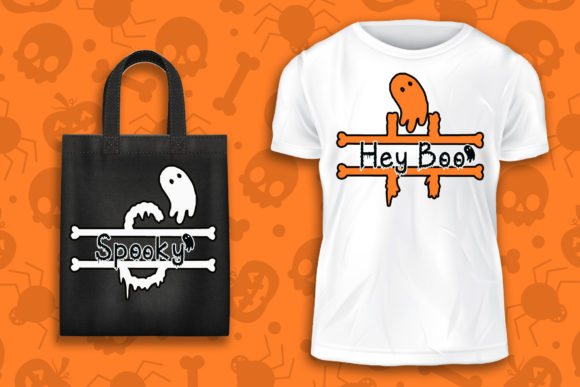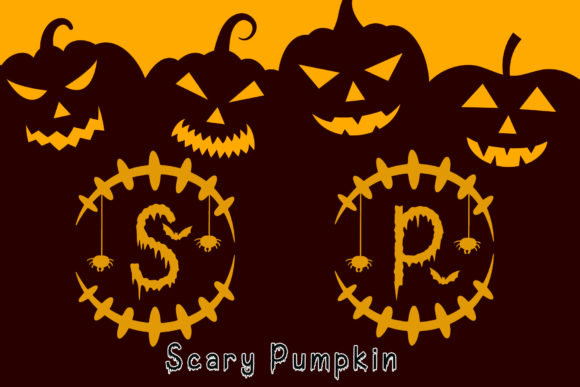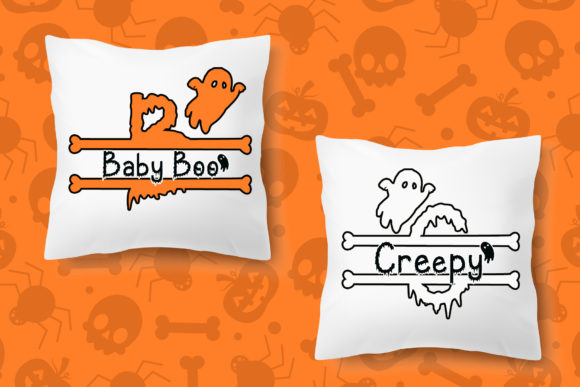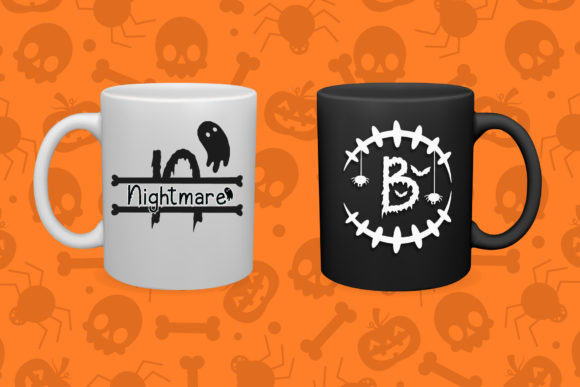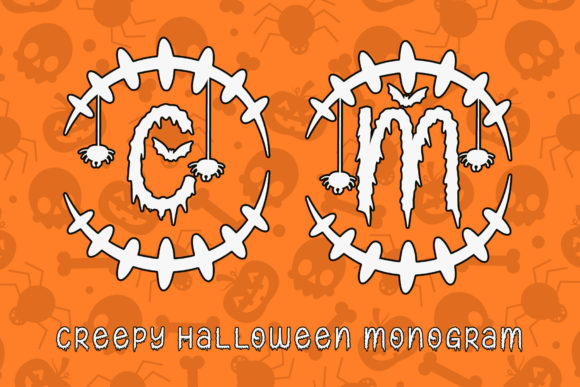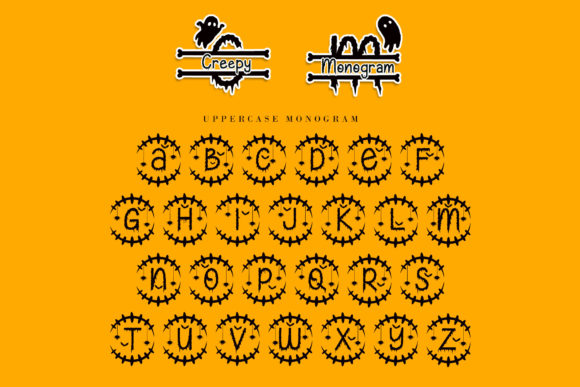
Introduction to Creepy Halloween Monogram Font
Creepy Halloween Monogram is a detailed and creepy duo font (display and decorative).
It is perfectly suitable for any Halloween-related project or crafty idea It is also PUA encoded which means you can access all of the glyphs and swashes with ease.